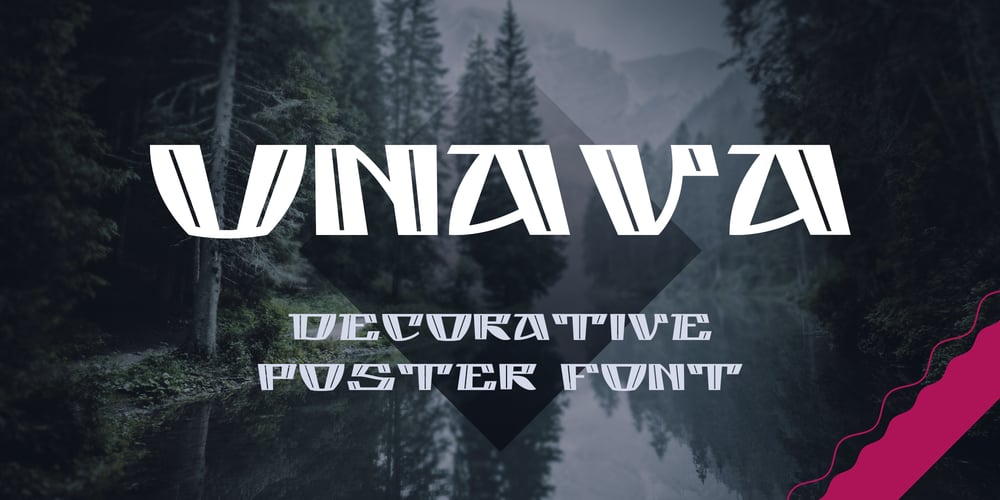
Unava Font Family was designed by Oleg Krasun and published by Myristica. Unava contains 1 styles and family package options. The font is inspired by the history of the native land – a city that blossoms on a high mountain, surrounded by the blue ribbon of the Unava River.The swift rapidity of the river, the important slow flow of its reservoirs, golden beaches and steep banks of which remember the glorious times of Cossack glory.Times when bright flags flew over the Cossack army, which swiftly swept the green meadows with lightning cavalry, and dusty paths under the scorching sun.To go out to defend their homes, to cross the cold steel of ringing sabers with the enemy, and, bravely going into battle, to fight back the invaders.The font combines the straight lines of sharp steel sweeps, the broken lines of jousting blows, and the refinement of the accent of undulating flag lines.